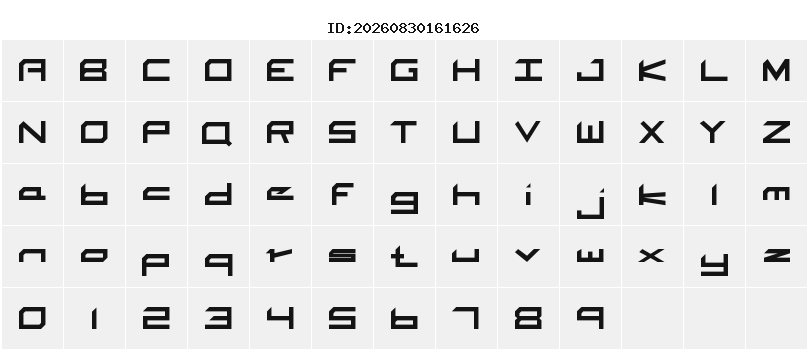
The Adroit Preview
• Font Name: The Adroit
• Full Font Name: The Adroit
• Version: Version 1.00 March 25, 2015, initial release
About The Adroit.ttf
The Adroit.ttf is a modern, elegant sans-serif font designed for ultimate readability and visual harmony. Perfect for branding, headlines, web design, and print materials.